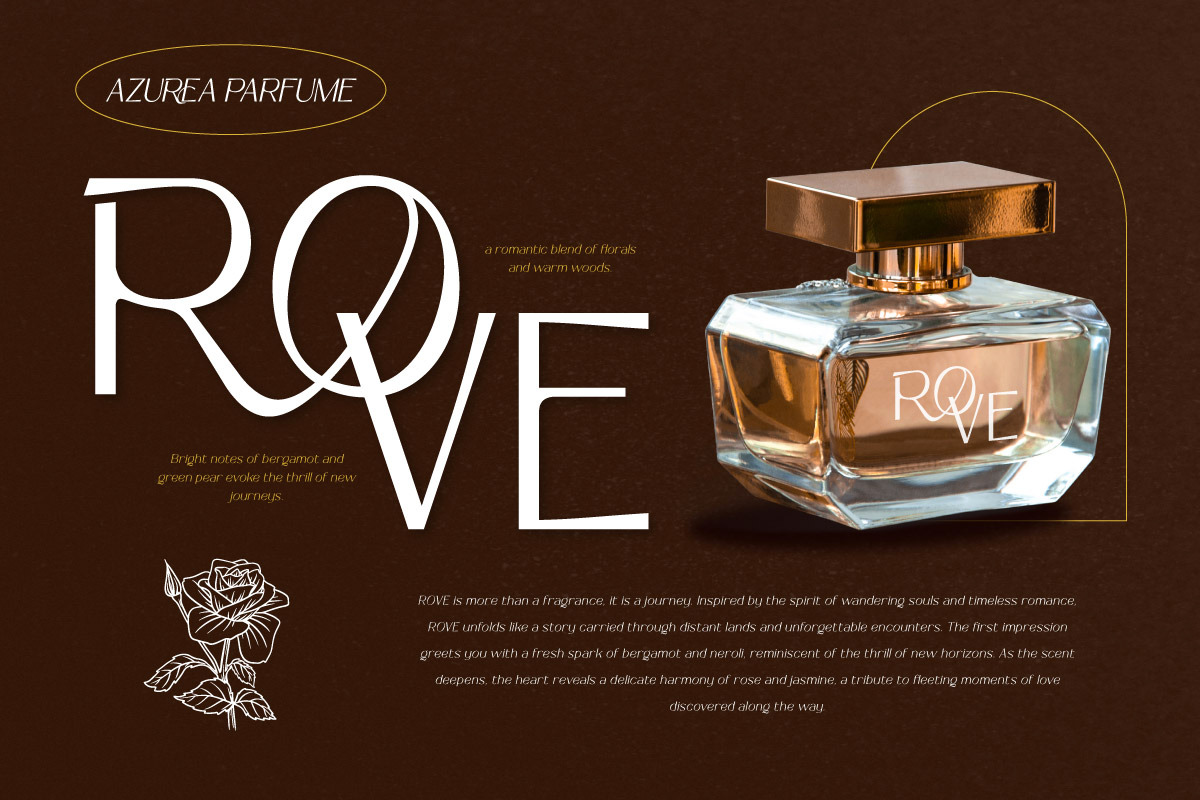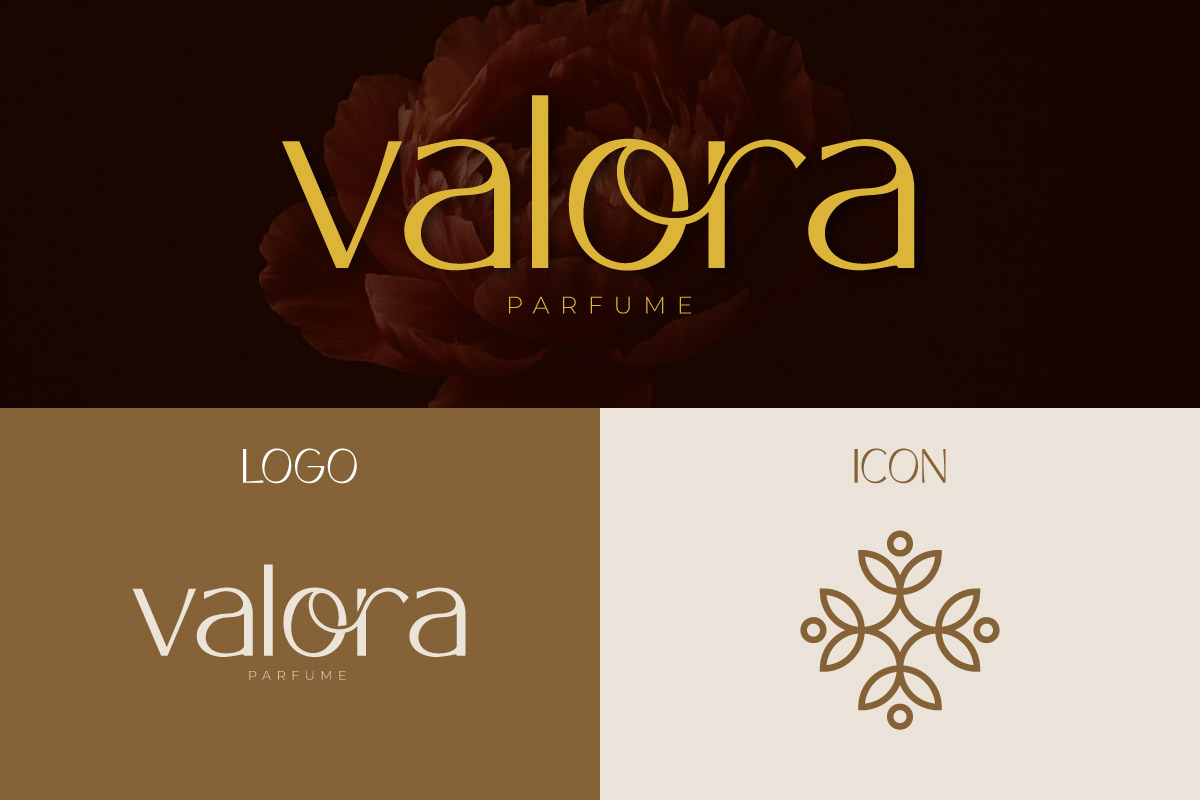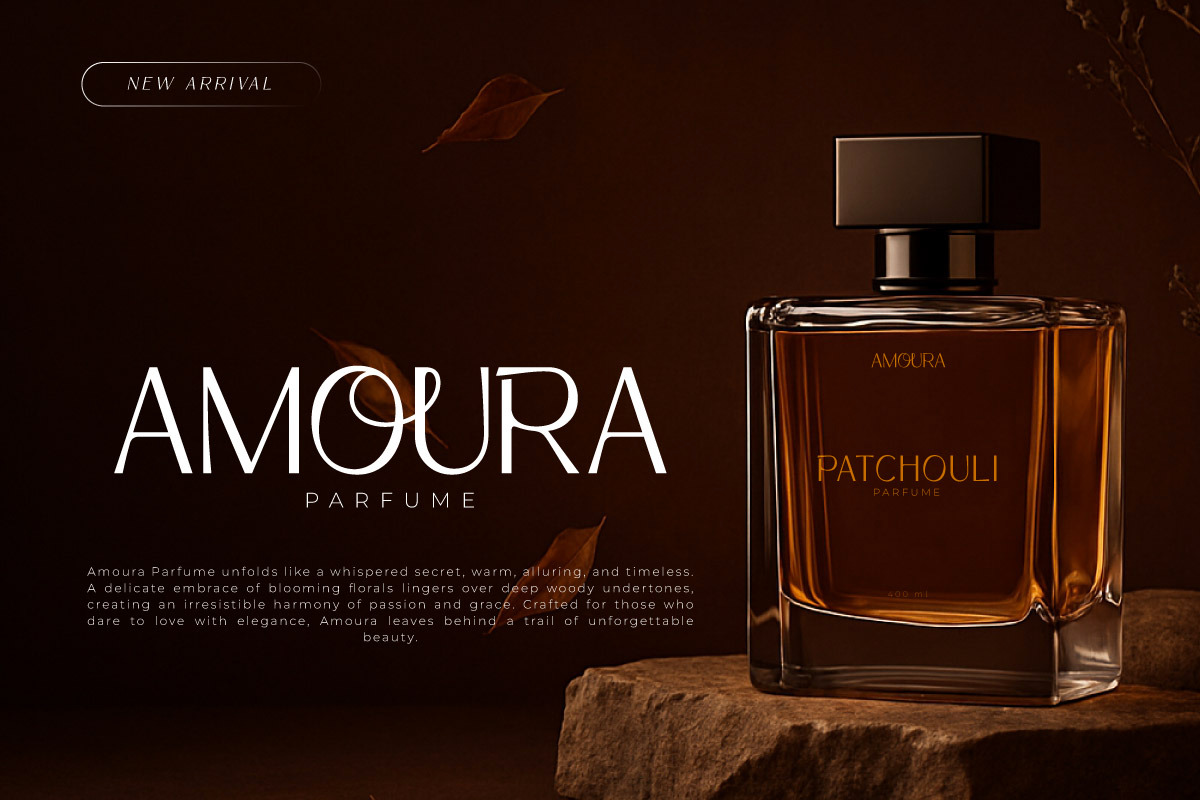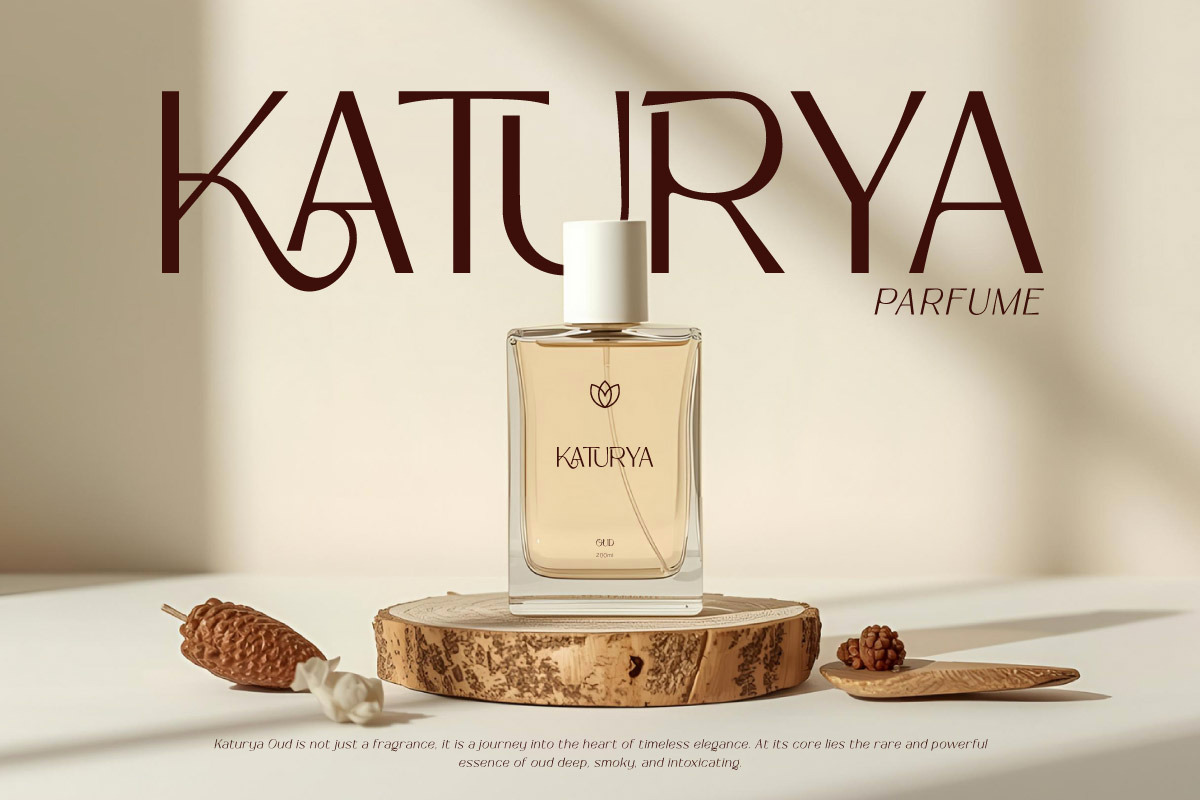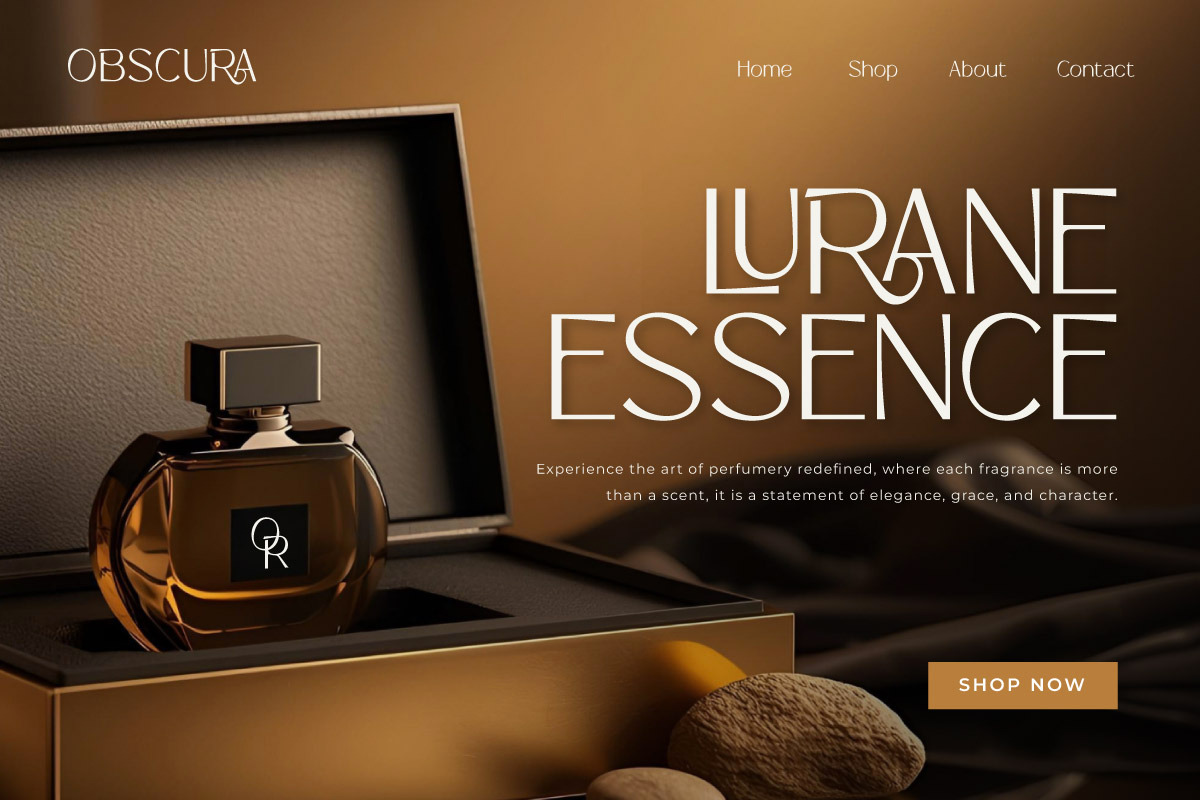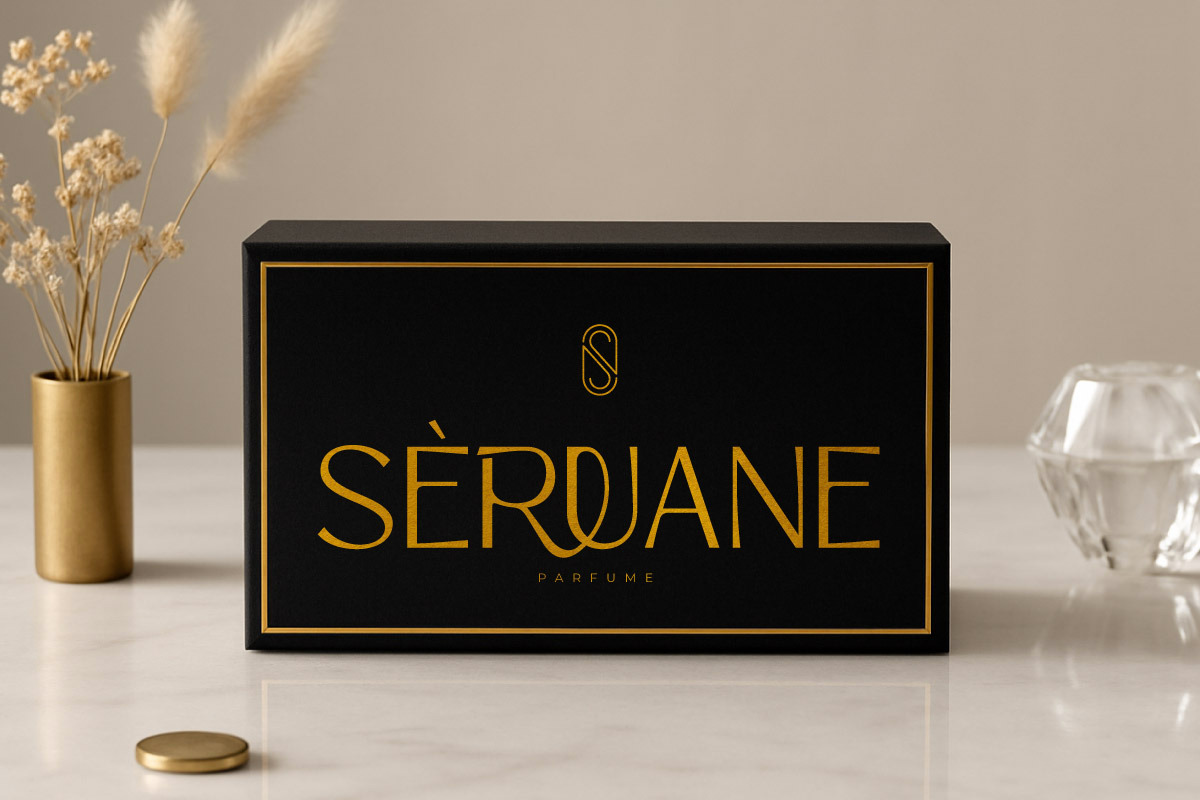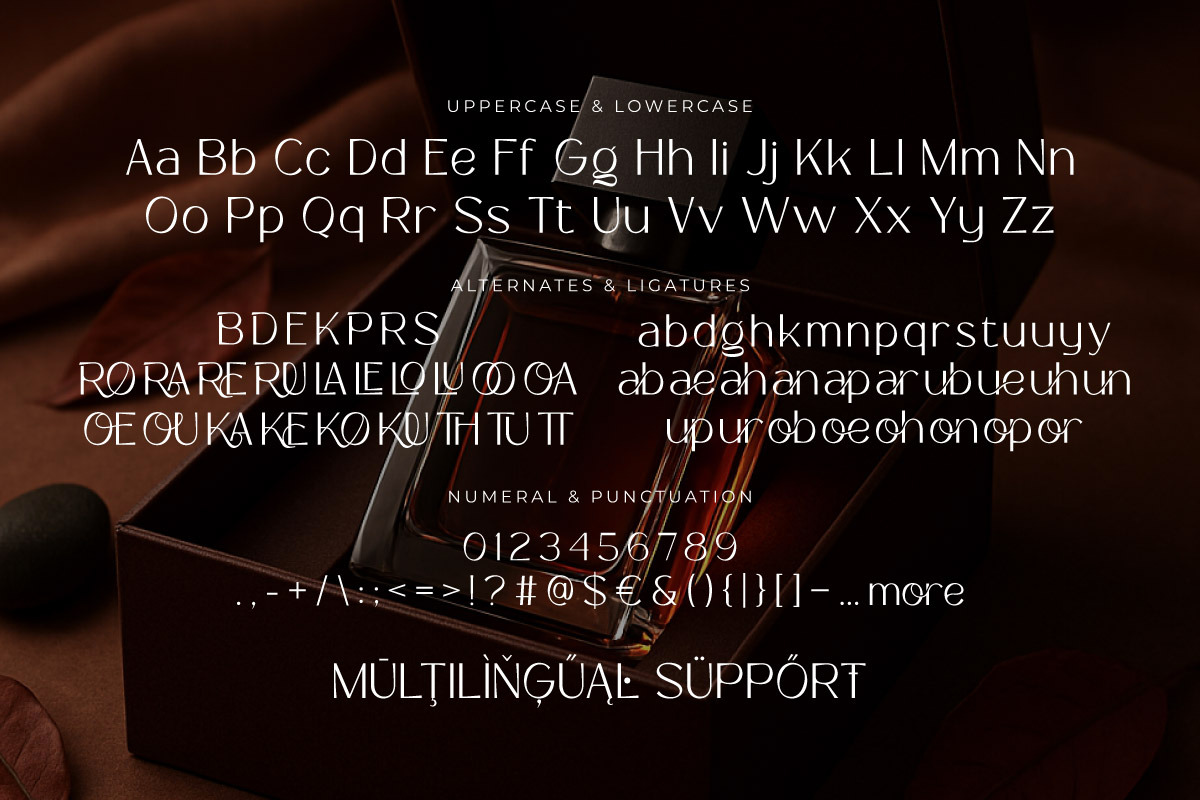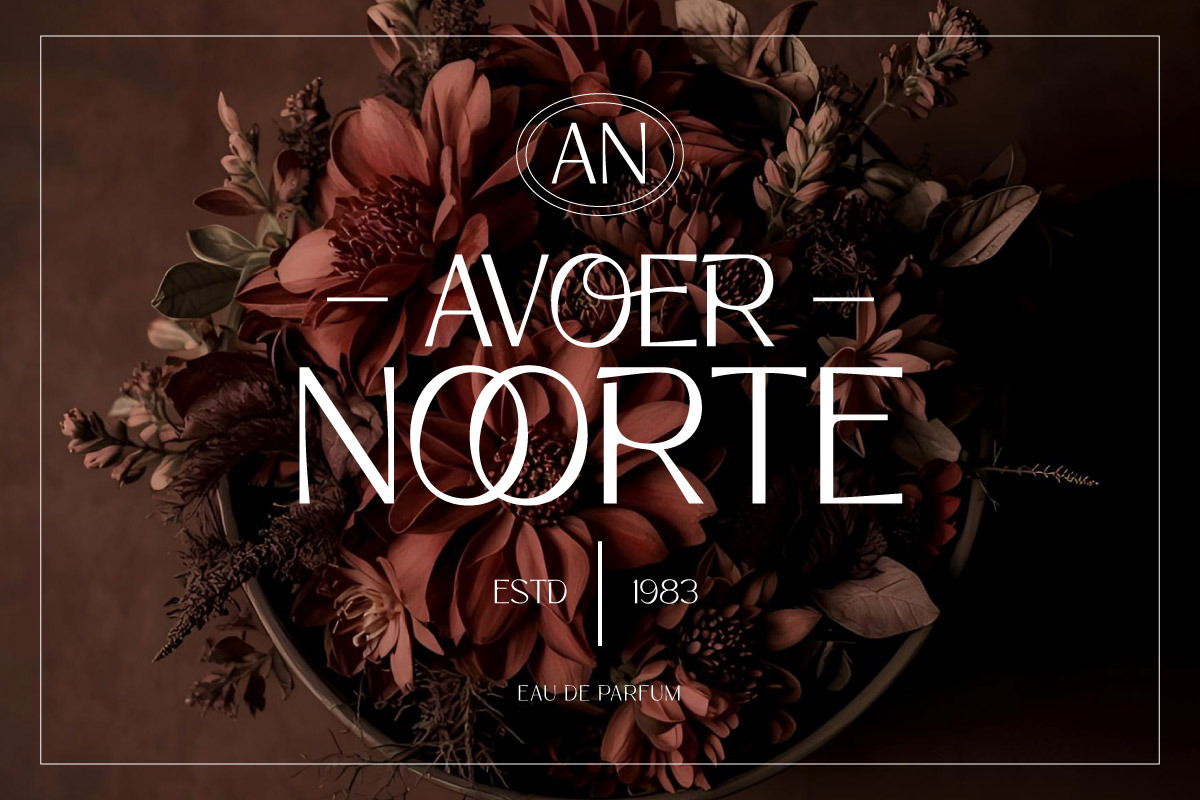
Niravaka - Modern Sans for Parfume
Niravaka – Modern Stylish Font is a refined and contemporary sans typeface designed with elegant curves and sophisticated letterforms. Its clean structure combined with subtle decorative details makes it perfect for projects that require a balance of modernity and class. Inspired by the aesthetics of luxury branding and high-end packaging, Niravaka captures the essence of timeless style with a fresh, modern touch.
This font includes both Regular and Italic styles, featuring alternates, ligatures, numerals, punctuation, and full multilingual support. Each character is crafted with precision, offering versatility for use in titles, logotypes, product packaging, or editorial layouts. The flowing ligatures add a graceful rhythm, while the sharp geometric foundation ensures clarity and professionalism.
Niravaka works beautifully for perfume labels, cosmetic branding, product packaging, visual identity systems, posters, invitations, or any creative project that needs a modern yet elegant typographic statement. It’s a stylish and sophisticated typeface designed to leave a lasting impression and elevate your brand presentation.
- Multilingual Support: Fully supports 85+ languages, including: Afrikaans, Albanian, Asu, Basque, Bemba, Bena, Breton, Catalan, Chiga, Cornish, Croatian, Czech, Danish, Dutch, Embu, English, Esperanto, Estonian, Filipino, Finnish, French, Friulian, Galician, Gusii, Hungarian, Indonesian, Irish, Italian, Kabuverdianu, Kalenjin, Kamba, Kikuyu, Kinyarwanda, Latvian, Lithuanian, Lower Sorbian, Luo, Luxembourgish, Luyia, Machame, Makhuwa-Meetto, Makonde, Malagasy, Maltese, Manx, Meru, Morisyen, North Ndebele, Norwegian Bokmål, Norwegian Nynorsk, Nyankole, Oromo, Polish, Portuguese, Quechua, Romanian, Romansh, Rombo, Rundi, Rwa, Samburu, Sango, Sangu, Scottish Gaelic, Sena, Serbian, Shambala, Shona, Slovak, Slovenian, Soga, Somali, Spanish, Swahili, Swedish, Swiss German, Taita, Teso, Turkish, Upper Sorbian, Uzbek (Latin), Volapük, Vunjo, Walser, Zulu.